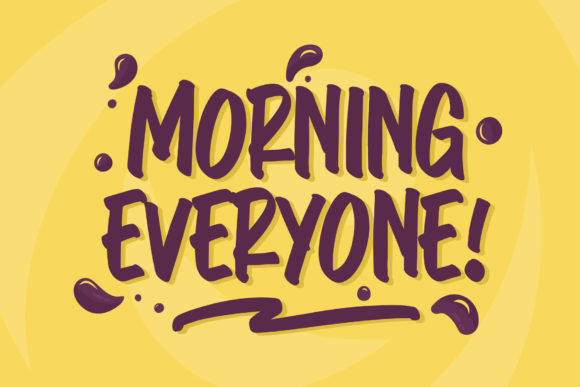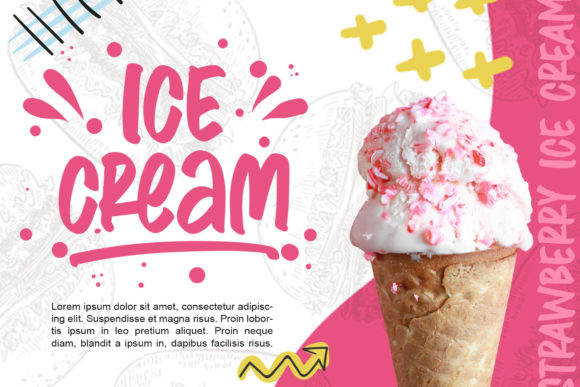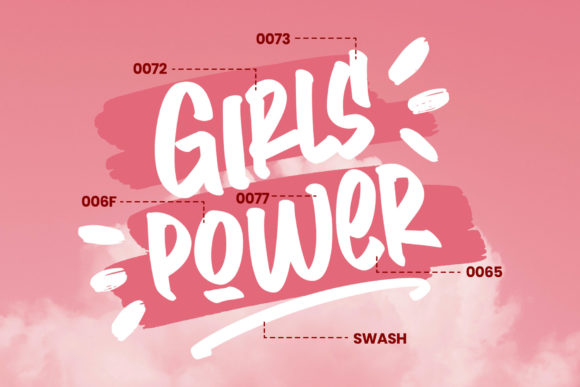
Introduction to Komersie Font
Komersie is a paint brushed script font with a relaxed theme, featuring a lovely style.
Key Features of Komersie Font
Why Choose Komersie Font?
Komersie Font offers exceptional quality and versatility, making it a valuable addition to your design toolkit. Whether you’re creating for personal projects or commercial use, Komersie Font delivers professional results.